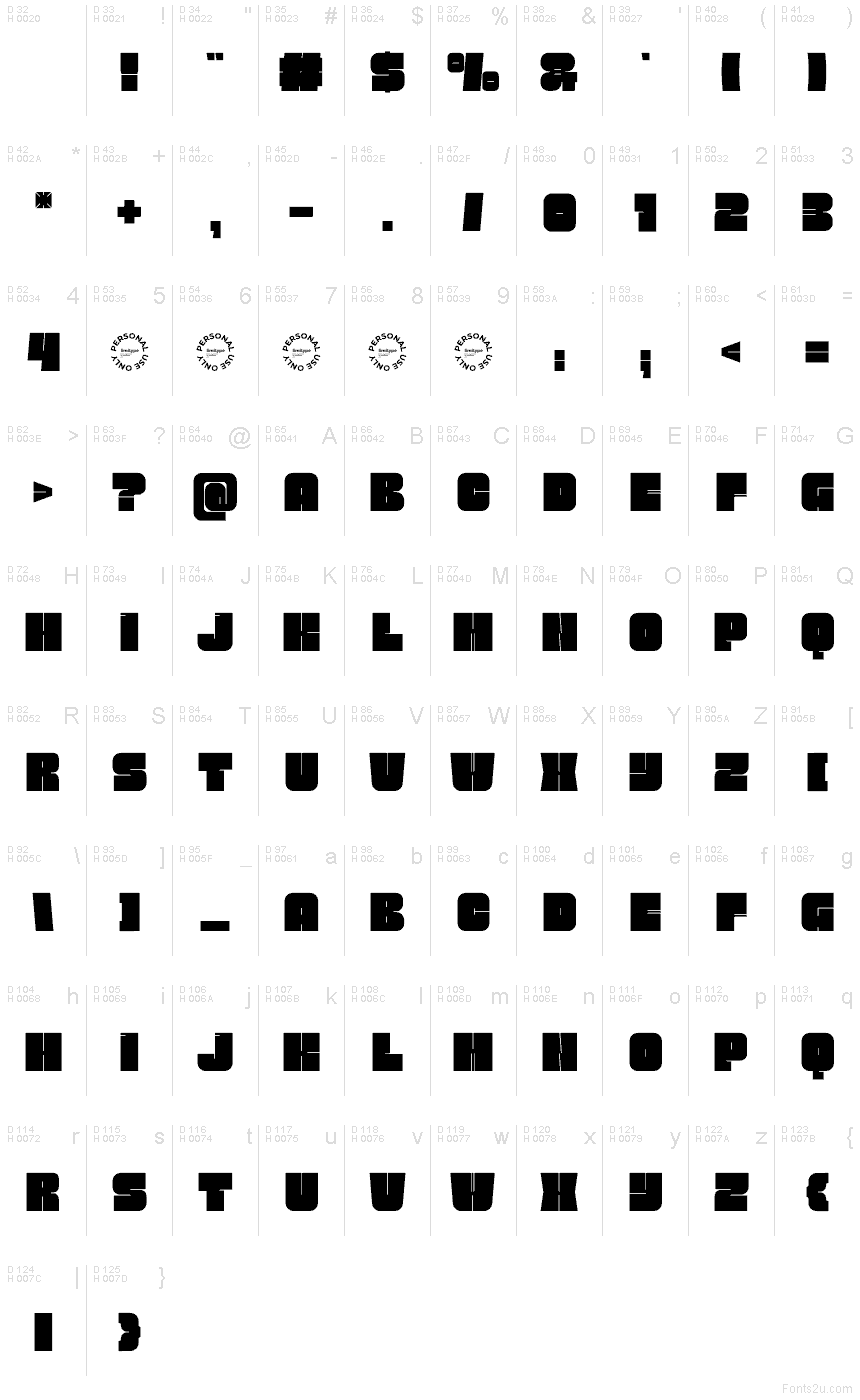
Rowsky Demo
Rowsky font by Limitype is a free bold groovy display font. Built around blocky, monolithic forms sliced by razor-thin vertical cuts, it turns negative space into rhythm. The letters feel hefty and tactile—like vinyl lettering pressed into glossy signage—while those narrow incisions add snap and motion. It’s retro without being kitsch, channeling a 70s sci‑fi marquee with crisp, contemporary control.
Using Rowsky at big sizes makes headlines pop for posters, album covers, festival branding, packaging, logos, and bold social graphics. The tight spacing keeps lines cohesive, and the internal slits prevent it from feeling heavy. Pair this free font with a light geometric sans for body copy, or add a touch of extra tracking to let the grooves breathe.